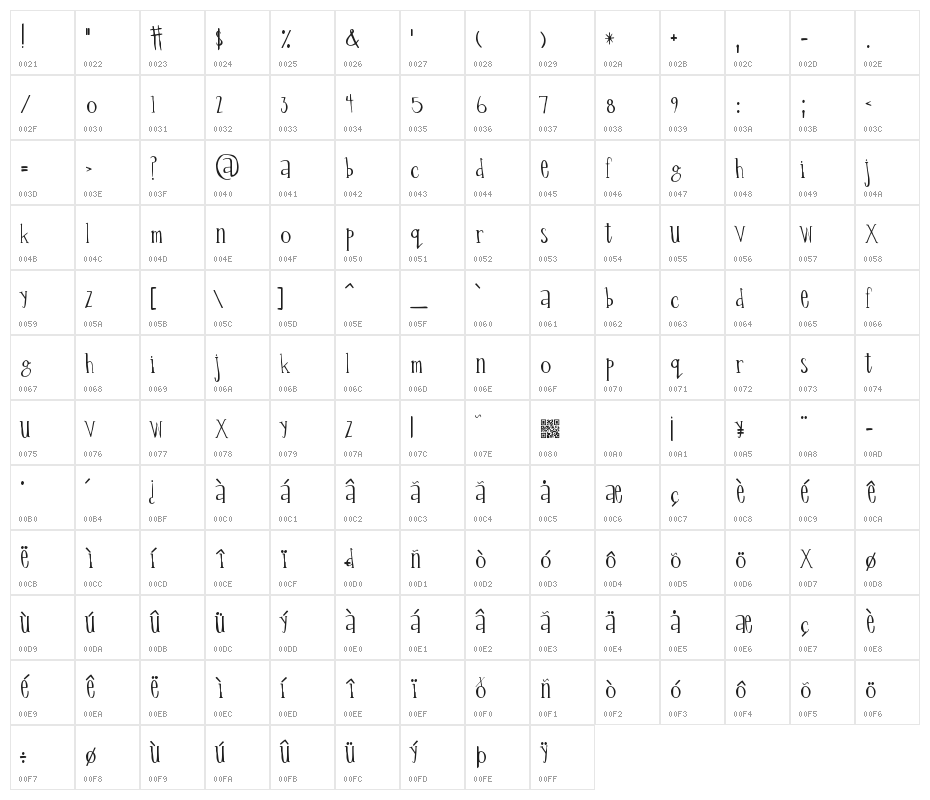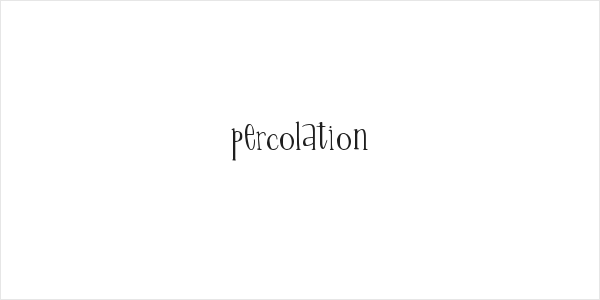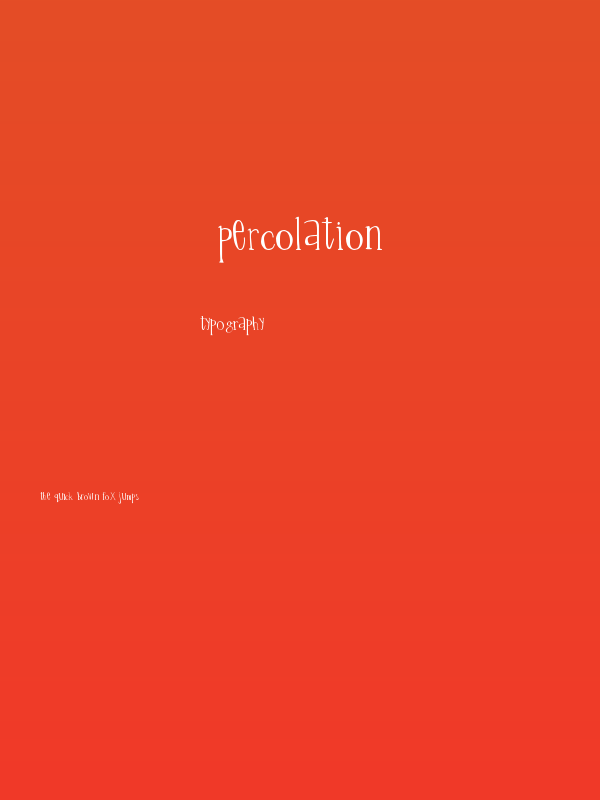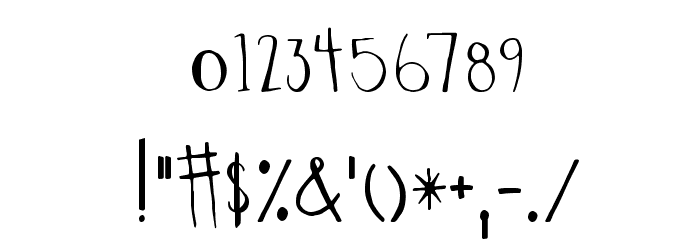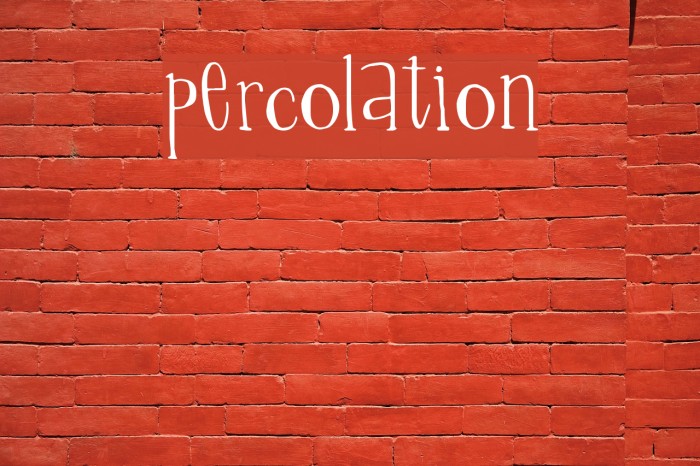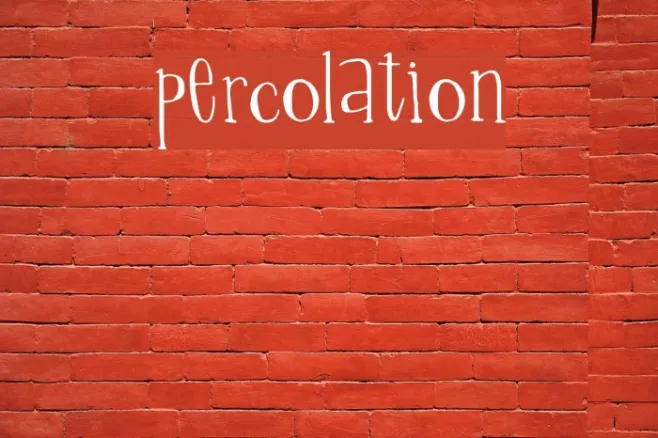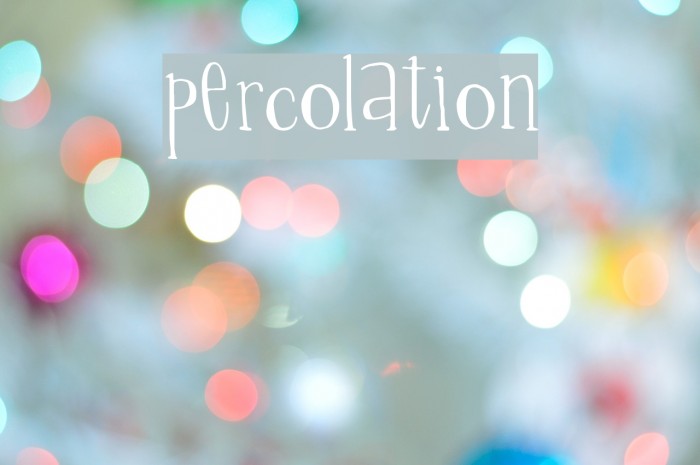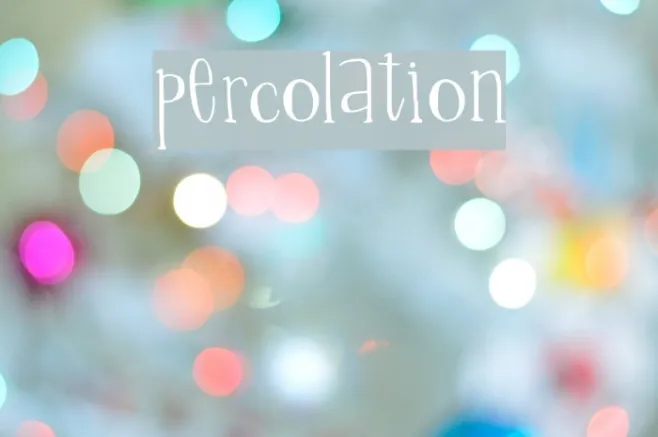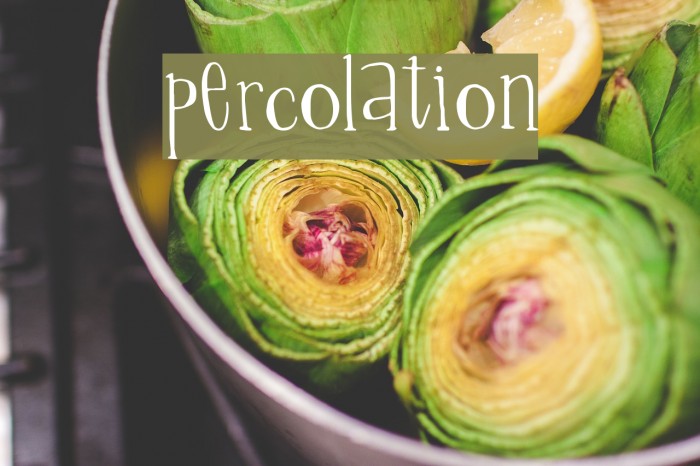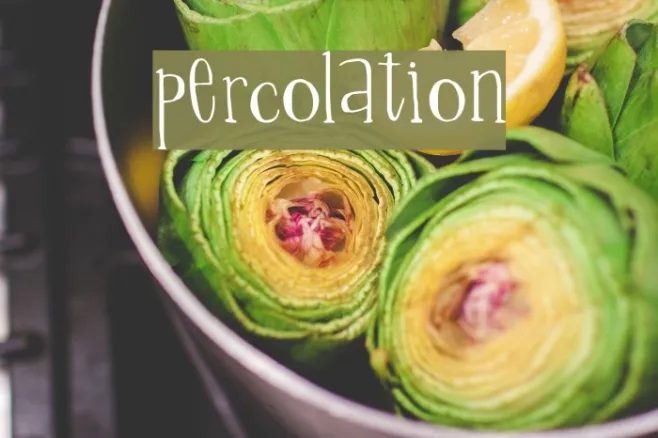
Percolation Font
Percolation Description
This font features a whimsical and playful design with a handwritten style. The characters have a slightly irregular and organic appearance, giving them a unique charm. The uppercase letters are tall and slender, while the lowercase letters maintain a consistent height with a slight tilt, adding to the casual feel. The numerals are quirky, with varying stroke thicknesses that add to the font's playful nature. Special characters are creatively designed, maintaining the overall whimsical theme. This font is perfect for projects that require a touch of personality and creativity.
| Proposed Projects | Ideal for greeting cards, children's books, playful branding, and creative posters. |